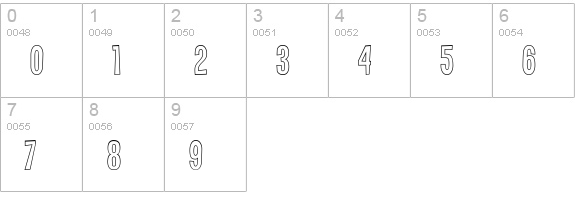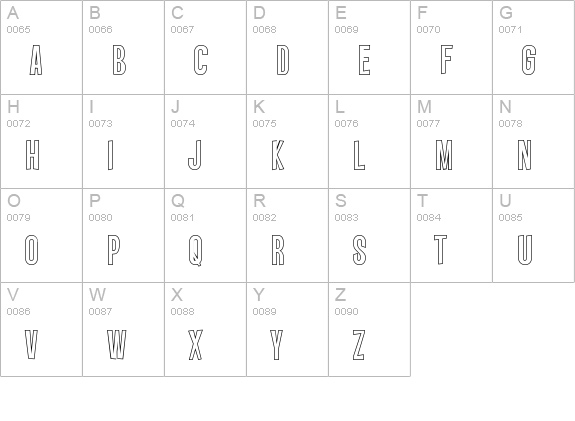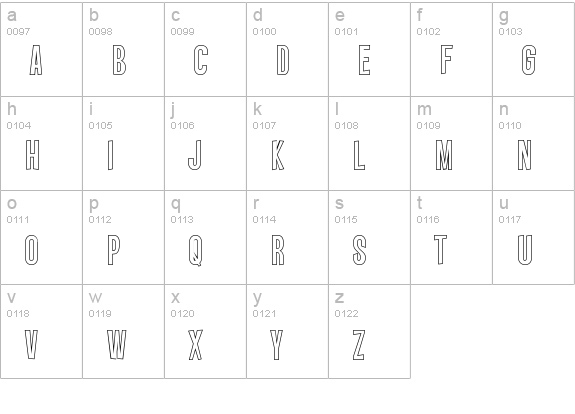
Introducing the captivating Vanishing Boy BTN Outline font, a true game-changer in the world of typography. With its unique and mesmerizing design, this font is sure to make a lasting impression on any project. The Vanishing Boy BTN Outline font offers a perfect balance between elegance and edginess, making it ideal for a wide range of creative purposes. Whether you're designing a logo, crafting eye-catching headlines, or creating stunning graphics, this font brings a touch of sophistication and intrigue to any composition. One of the most remarkable features of the Vanishing Boy BTN Outline font is its versatility. It seamlessly adapts to various design styles, effortlessly enhancing the visual appeal of any project. From sleek and modern to vintage and retro, this font effortlessly caters to diverse aesthetic preferences, making it a must-have for designers, artists, and creatives alike. But what truly sets the Vanishing Boy BTN Outline font apart is its accessibility. It's not only visually stunning but also freely available to download at FontsMarket.com. Yes, that's right – you can now elevate your designs with this remarkable font without breaking the bank. FontsMarket.com grants you the opportunity to unleash your creativity and explore the endless possibilities that this font has to offer, all at no cost. So, why wait? Experience the power of the Vanishing Boy BTN Outline font and transform your designs into works of art. Download it for free at FontsMarket.com and embark on a journey of visual innovation and excellence. Let your imagination run wild and let this font be your ultimate companion in creating extraordinary designs that leave a lasting impact.